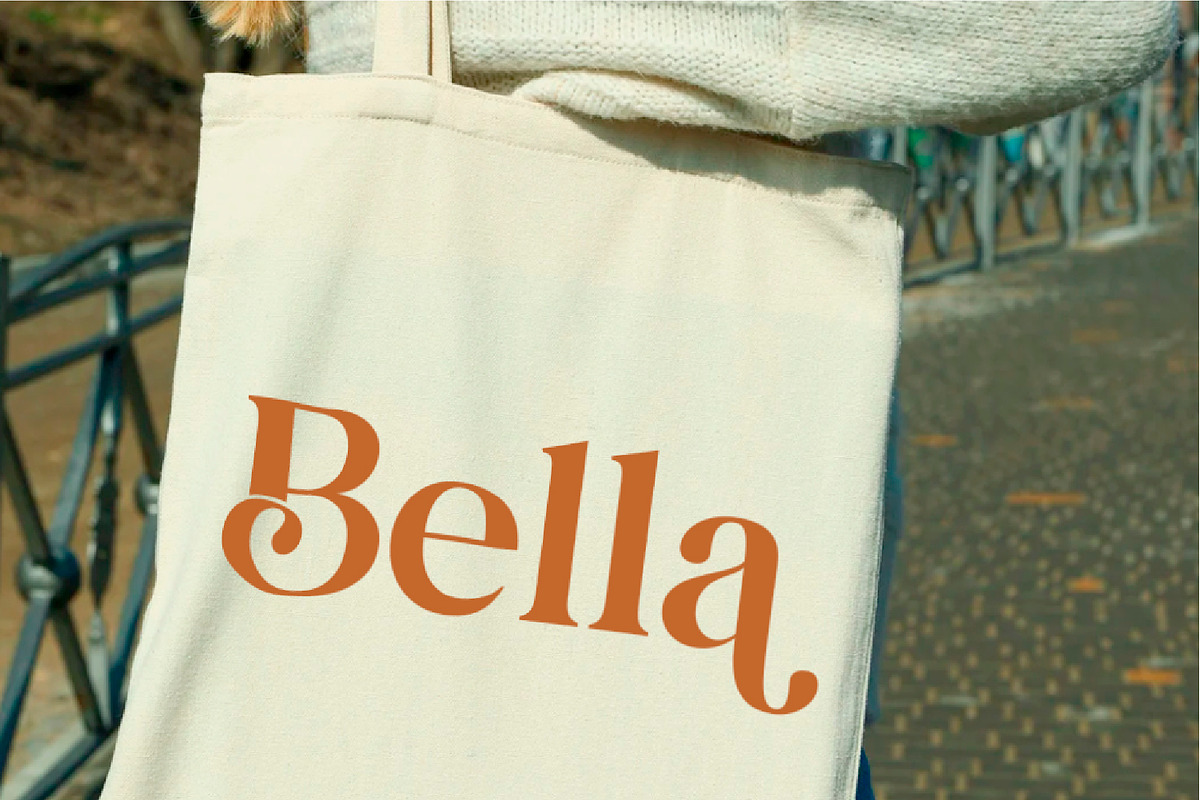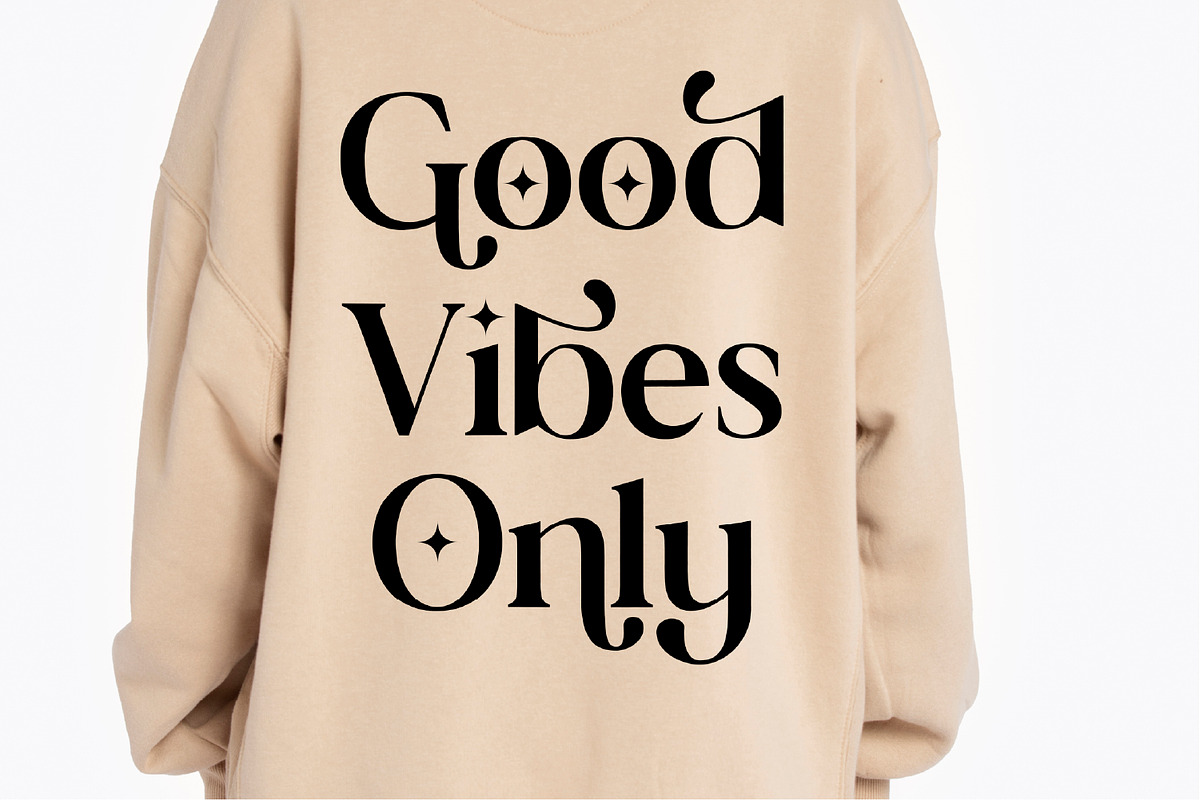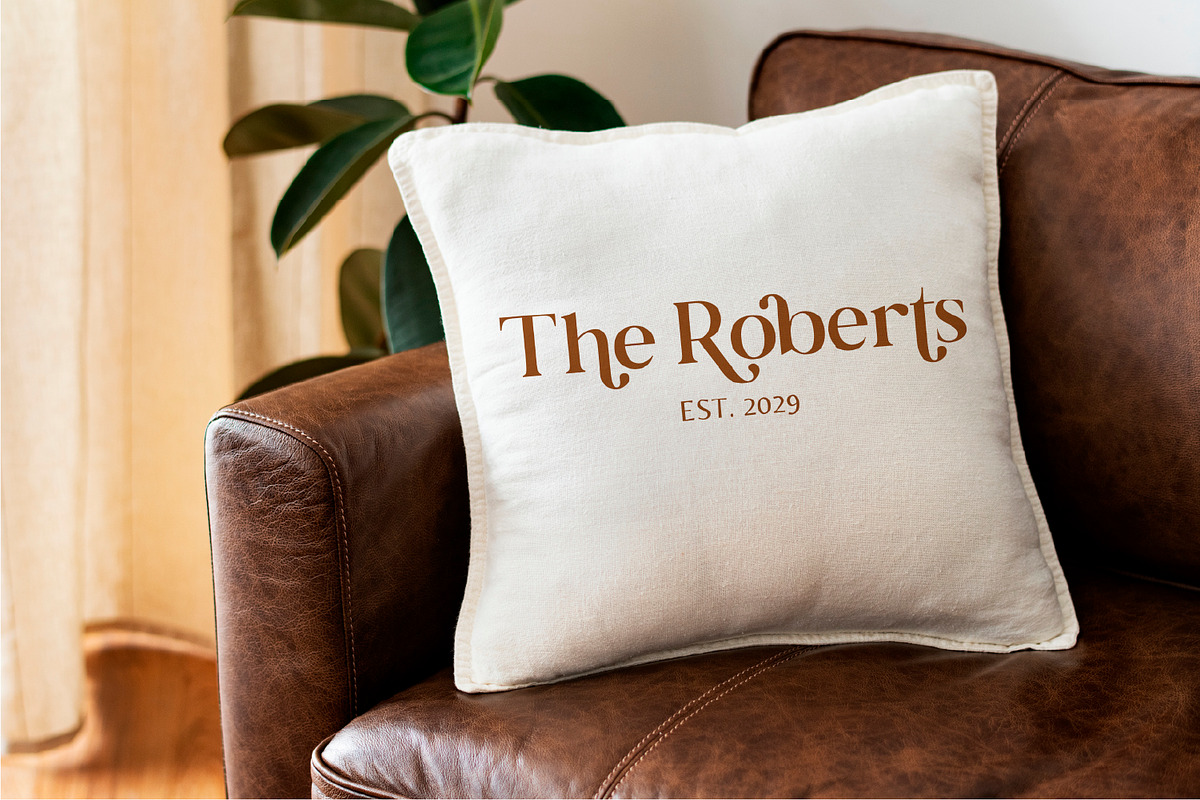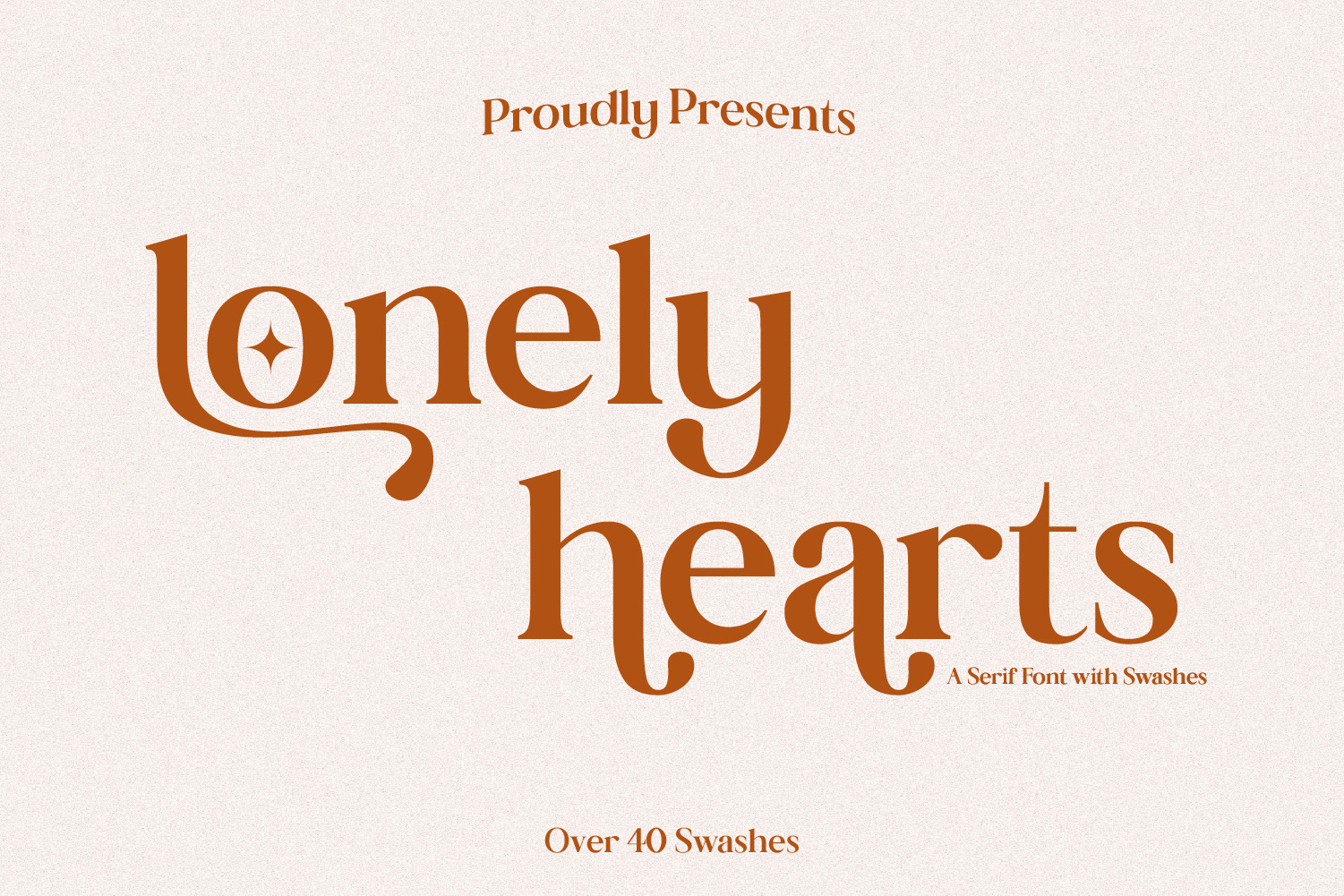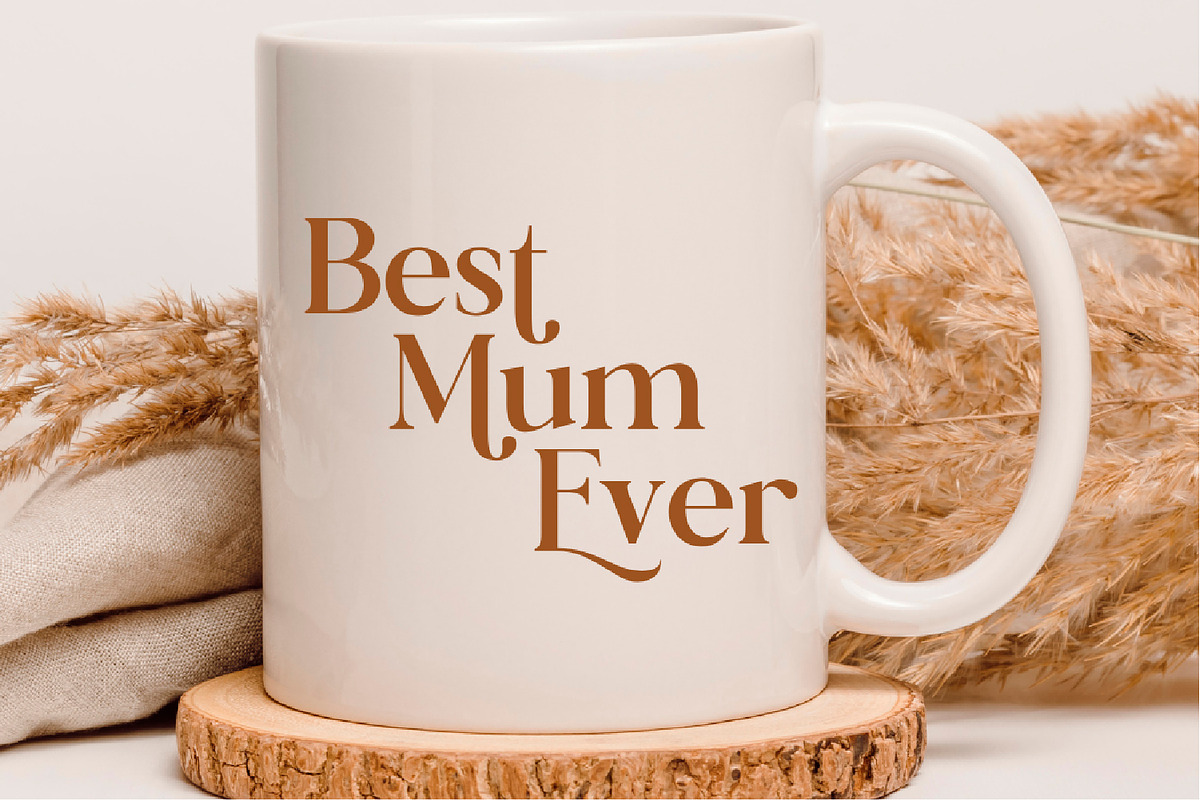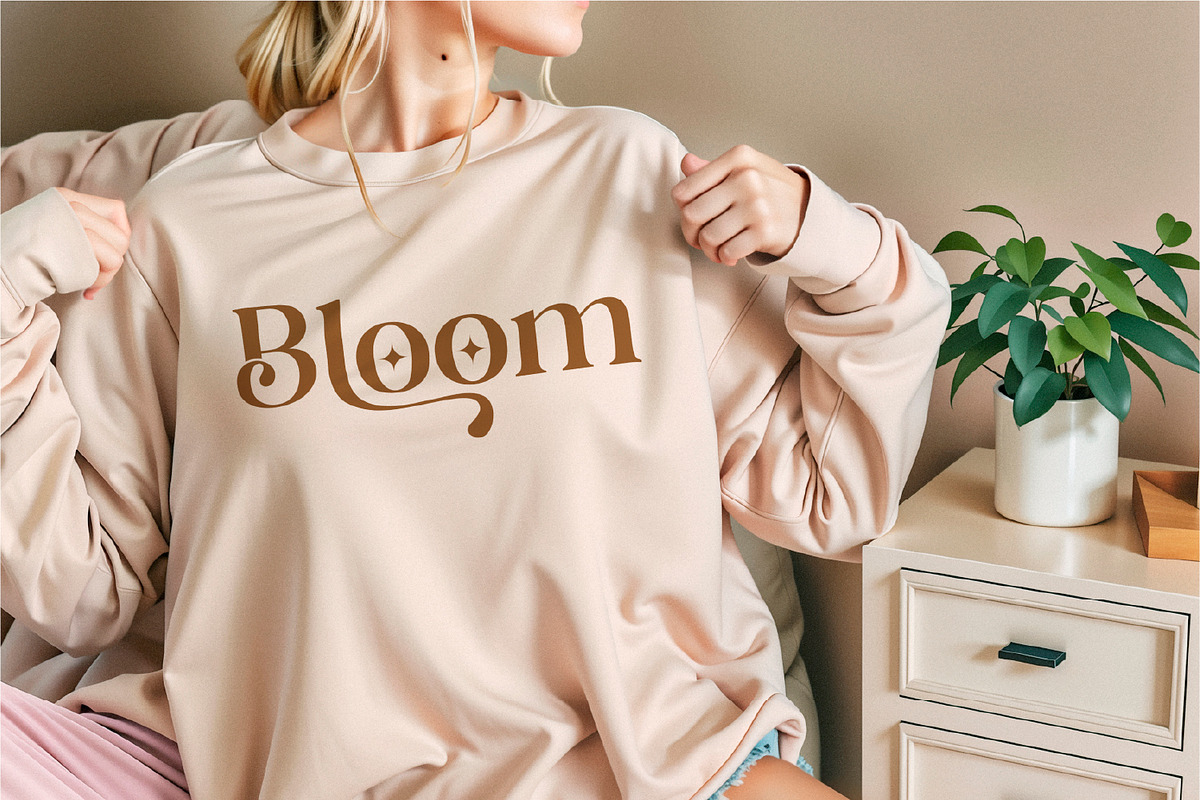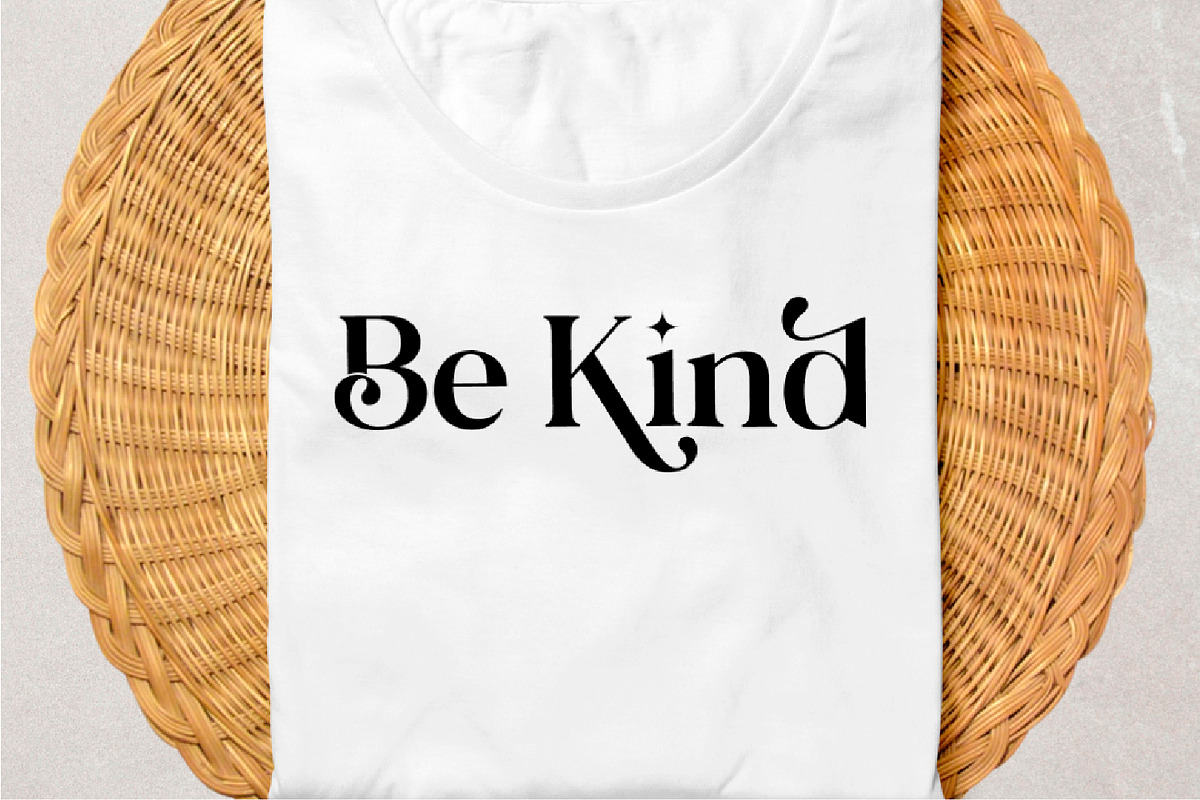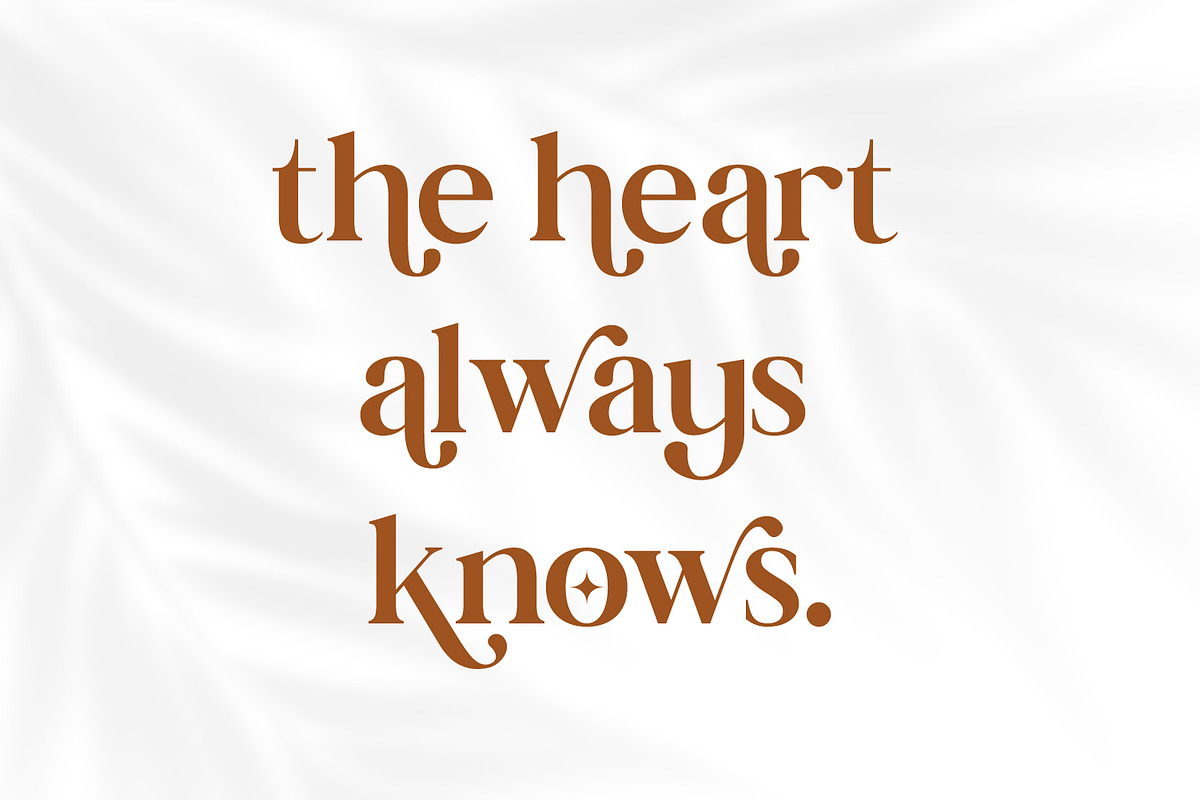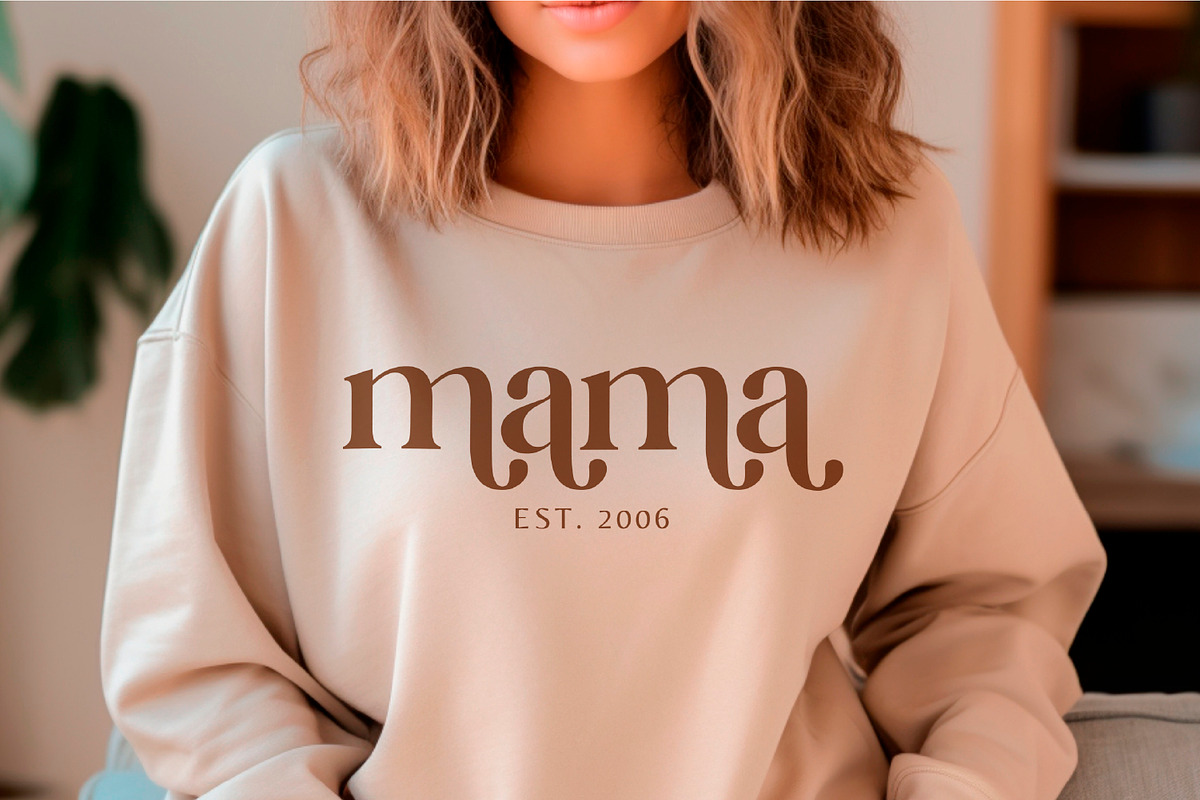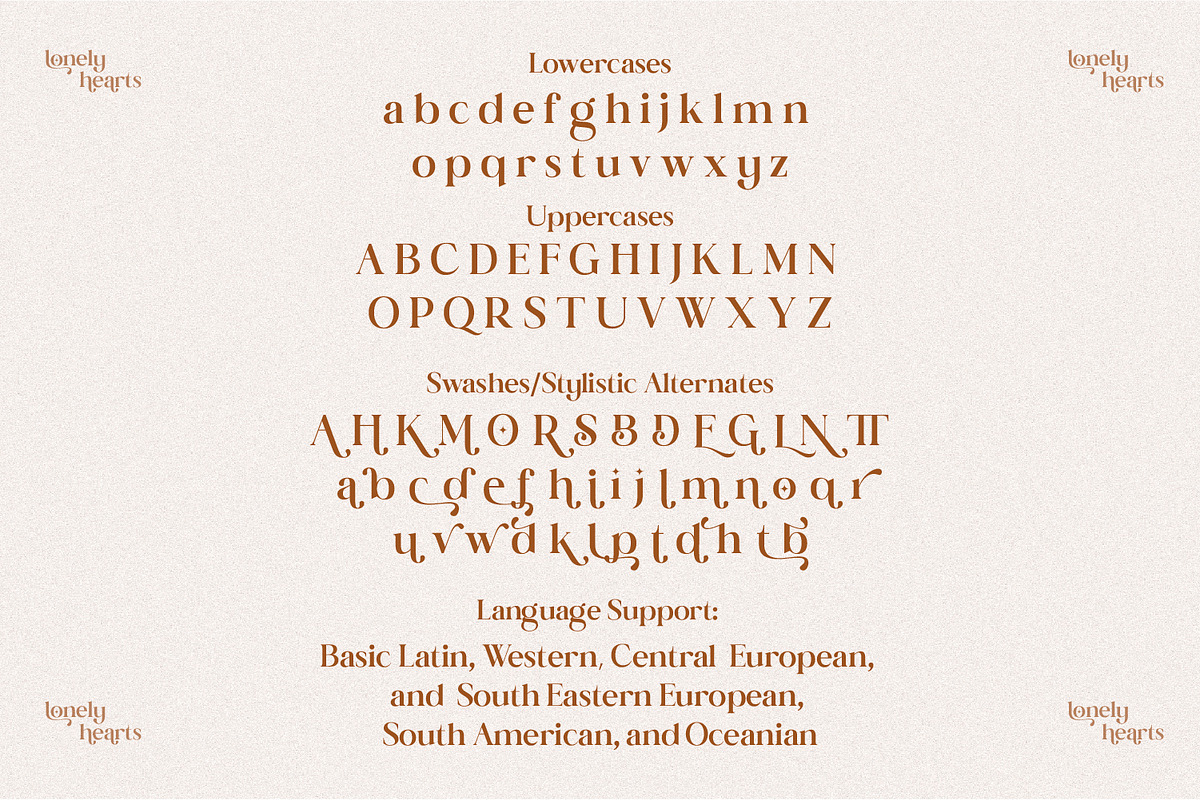
Lonely Hearts A Display Font
Lonely Hearts is a refined, expressive serif font that blends timeless elegance with a touch of romance. Designed for those who want to make a statement, it features graceful curves, stylish serifs, and beautifully crafted alternates that bring sophistication to every letter.
Perfect for wedding invitations, branding, packaging, book covers, logos, and editorial design, Lonely Hearts carries a warm and poetic aesthetic that feels both classic and modern.
✨ Features
- Swashes and stylistic alternates (PUA encoded) — easily accessible without special design software
- Smooth curves and balanced spacing for professional typography
- Works beautifully in both large titles and delicate text layouts
💡Perfect For
- Wedding invitations & stationery
- Branding & logos
- Editorial & magazine titles
- Social media graphics
- Packaging design & product labels
Lonely Hearts captures the charm of vintage lettering with a fresh, contemporary touch — making it an ideal choice for designers who love elegance, artistry, and emotion in their typography.-